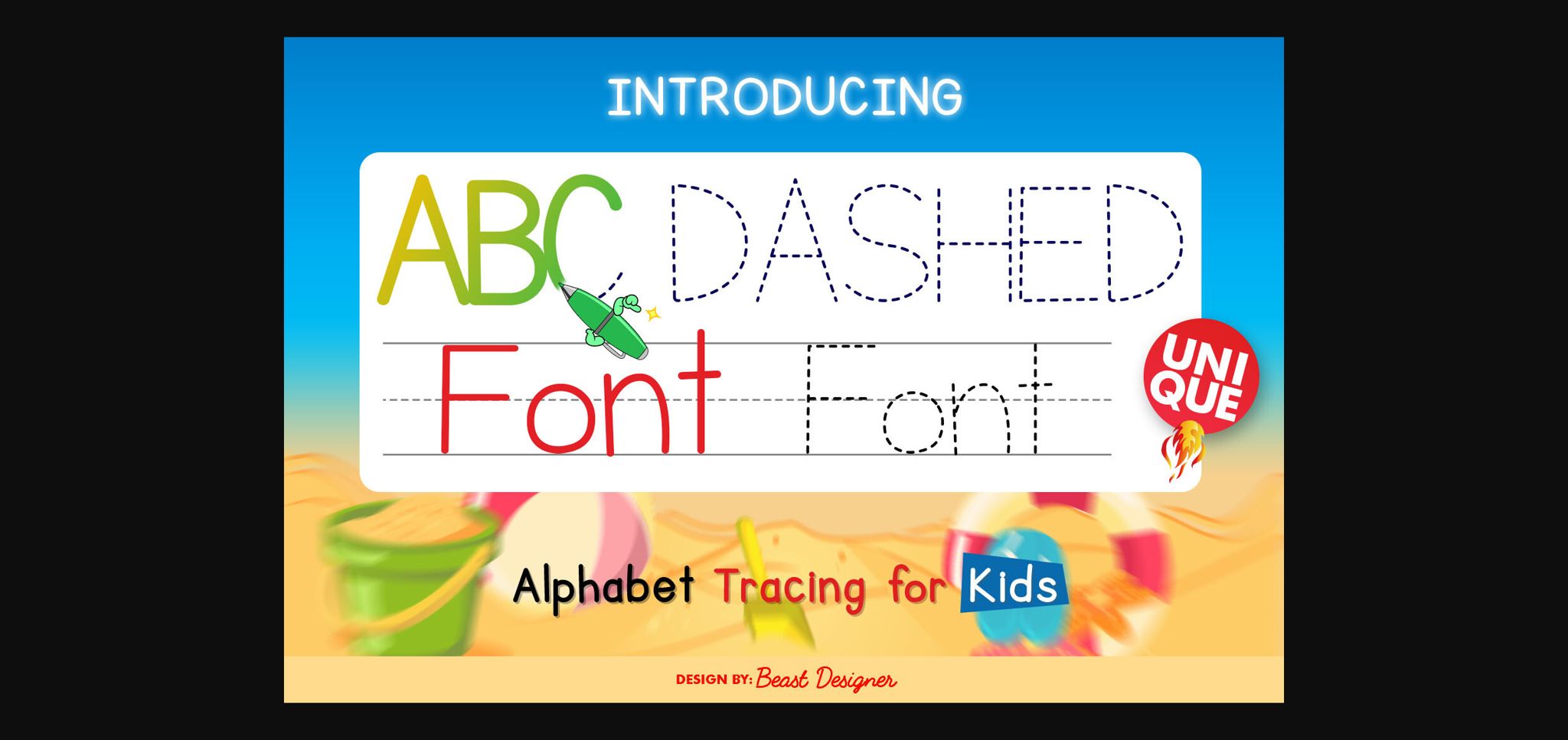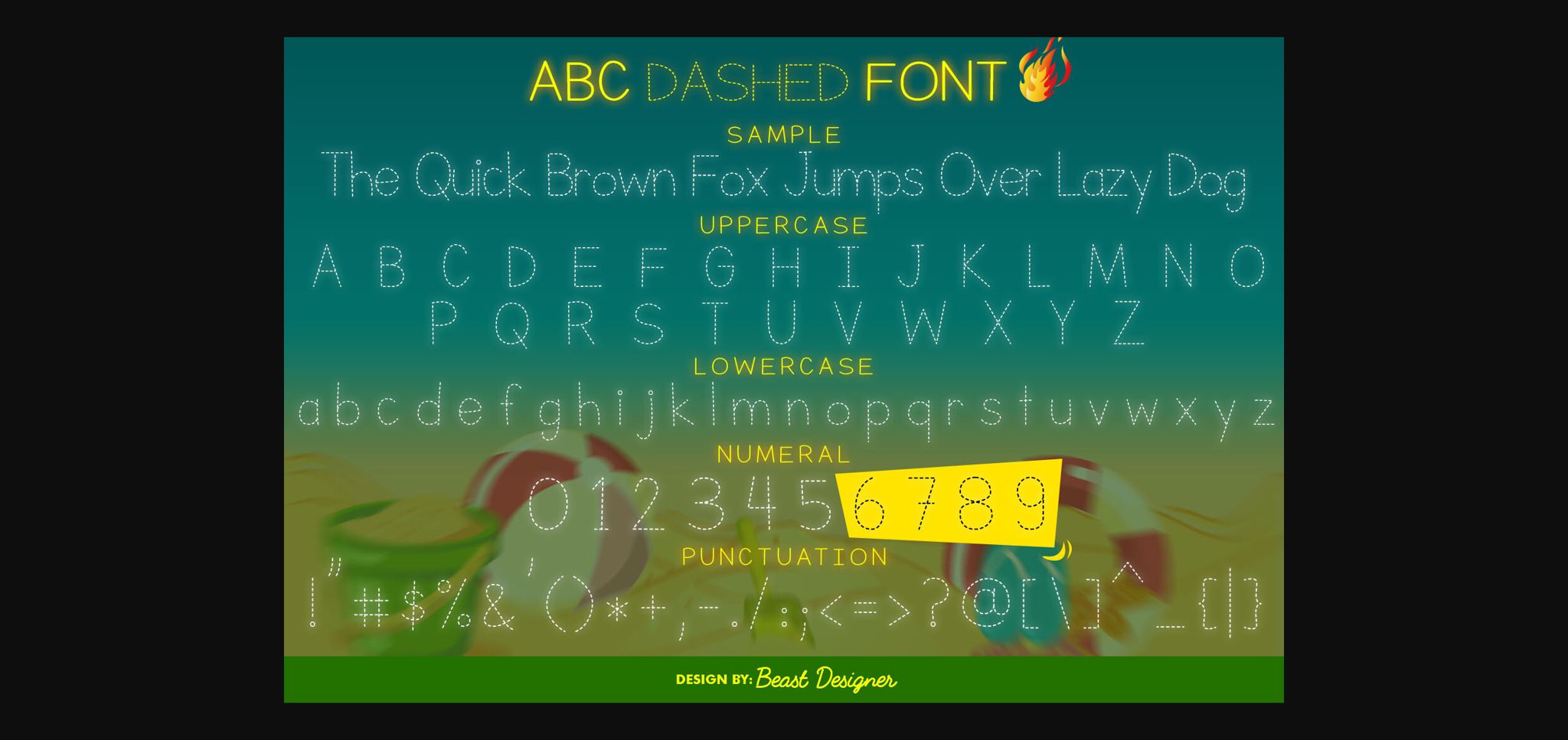
About Abc Dashed Font
Explore an effortless way to enhance your writing skills using the ABC Dashed Tracing Font.
Crafted especially for those starting and young learners, this font incorporates helpful dashed lines that act as friendly guides while you practice.
Whether you’re just getting the hang of writing or aiming to refine your handwriting, this font serves as an engaging tool to develop and improve your skills. It’s an enjoyable, interactive resource suitable for anyone looking to master the art of writing neatly and accurately.